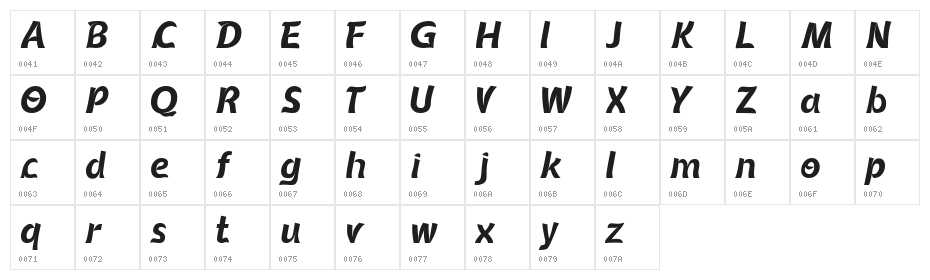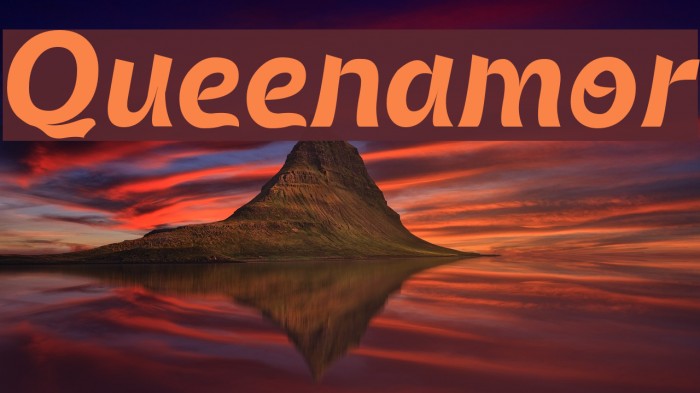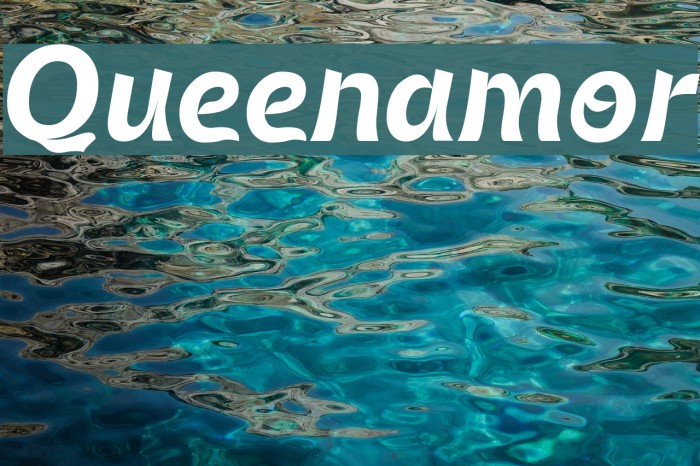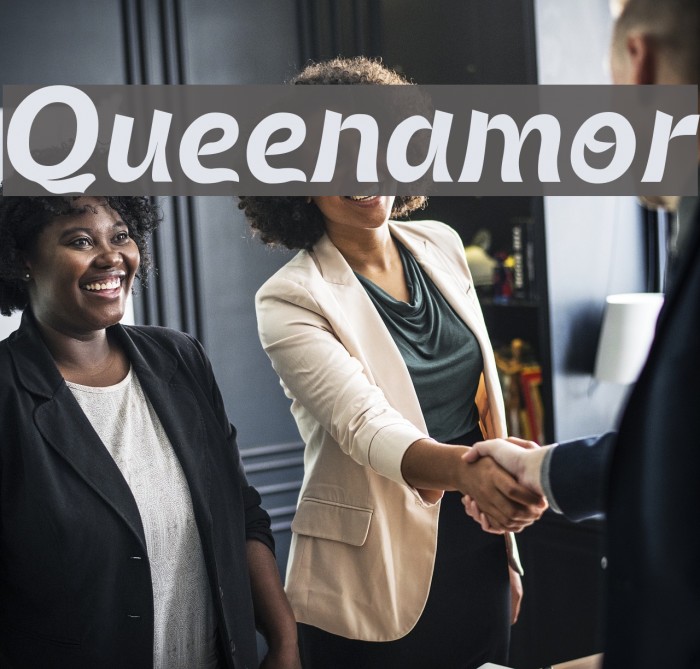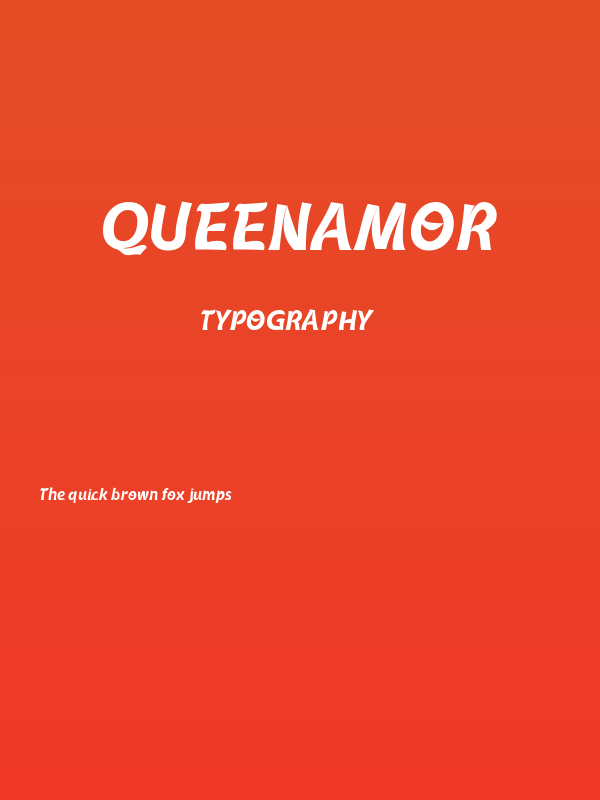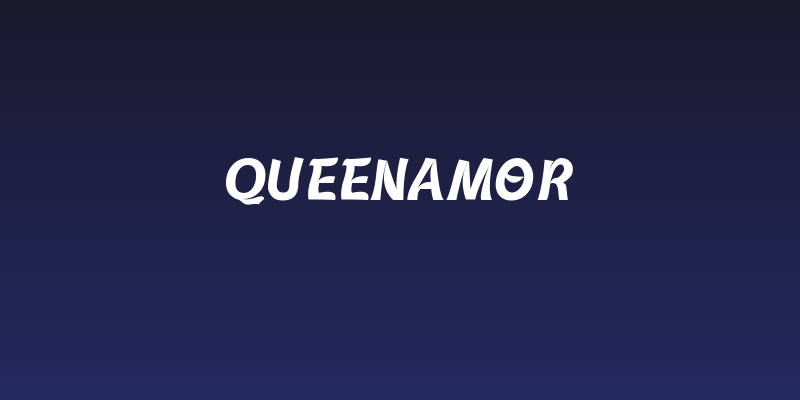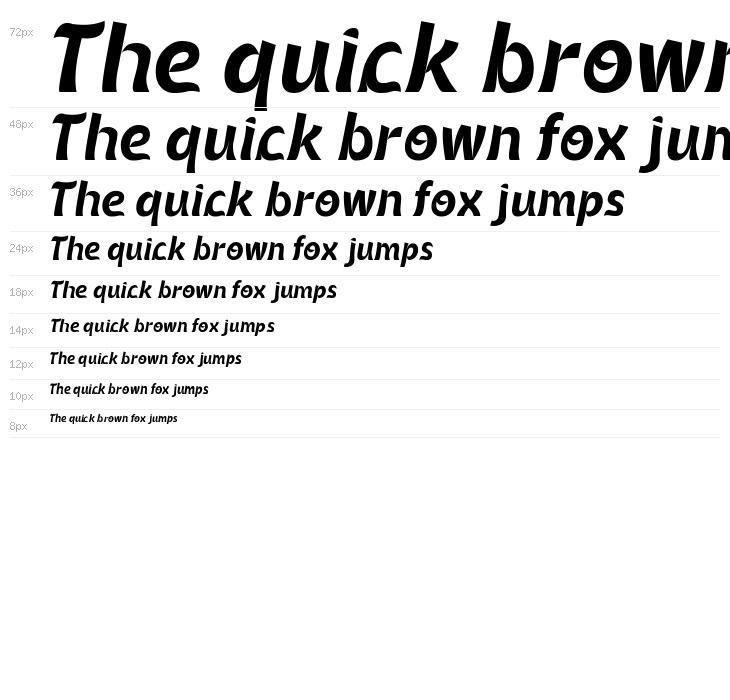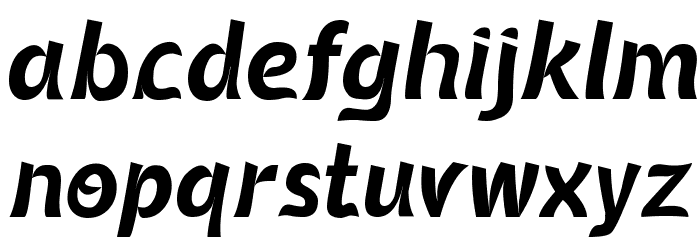
Queenamor Font
Queenamor Description
This font features a bold and dynamic style with a slight forward slant, giving it an energetic and modern appearance. The characters are well-defined with a consistent stroke width, providing a sense of uniformity and balance. The uppercase letters are strong and commanding, while the lowercase letters maintain a cohesive flow, enhancing readability. The numerals are clear and distinct, matching the overall aesthetic of the alphabet. The special characters are designed to complement the letterforms, ensuring versatility in various design contexts. This font's unique style makes it suitable for projects that require a touch of modernity and flair.
Use CaseHeadlines, Logos, Branding
Proposed ProjectsIdeal for branding, advertising, headlines, and modern design projects.